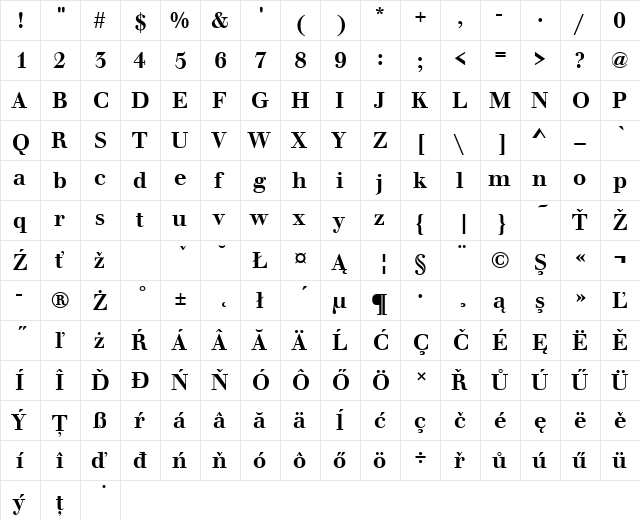
WalbaumBucTEEMed Regular Font Preview
WalbaumBucTEEMed Regular
Design Context for WalbaumBucTEEMed Typeface
WalbaumBucTEEMed offers clean, dependable letterforms without strong stylistic allegiance, making it a practical choice for designers who need flexibility.